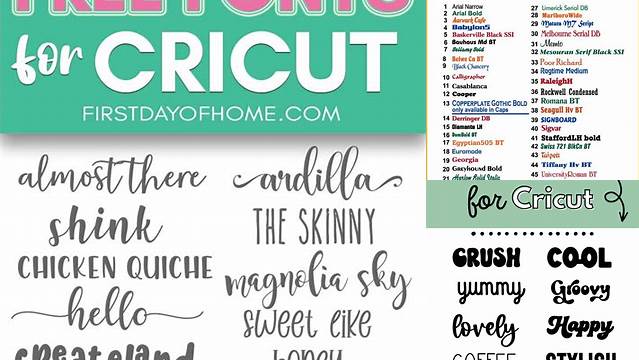
Cricut Font Names: A Complete Guide For Crafters
Hey crafters! Ever found yourself lost in the sea of Cricut font names, wondering which one to use for your next project? You're not alone! Choosing the right font can make or break your design. This guide is your ultimate resource for navigating the world of Cricut fonts, from built-in options to the best ones you can download and use. We'll cover everything from font categories to pairing tips, so you can create stunning crafts every time. Let's dive in and become Cricut font pros!
Cricut Design Space Fonts
The first place to start your font journey is right within Cricut Design Space itself! Cricut Design Space offers a wide array of fonts, and understanding what’s available is crucial. The platform boasts a diverse library of both Cricut fonts and system fonts (those already installed on your computer). Knowing how to access and utilize these fonts can significantly enhance your crafting capabilities. Many crafters find the built-in options more than sufficient for a wide range of projects, while others choose to expand their collection with external fonts. By exploring this section, you’ll gain a solid foundation in the basics of Cricut Design Space fonts and their usage, setting the stage for more advanced font exploration.
Understanding Cricut Fonts vs. System Fonts
It's important to understand the difference between Cricut fonts and system fonts to make the most of Cricut Design Space. Cricut fonts are those that are directly available through your Cricut Design Space subscription or purchased individually. System fonts, on the other hand, are the fonts that are already installed on your computer’s operating system (like Windows or macOS). This distinction matters because it affects how you access and use the fonts. Cricut fonts are readily available within Design Space and often come with special features like multi-layer options. System fonts, while accessible, might require additional steps for optimal use within the software. Knowing this difference ensures you can seamlessly integrate any Cricut font name or style into your projects, whether it's a built-in option or one you’ve installed yourself. Choosing the right type can significantly impact the final look of your craft!
Filtering Fonts in Design Space
Filtering fonts in Cricut Design Space can save you a ton of time and make your creative process much smoother. With hundreds of options available, finding the perfect Cricut font can feel like searching for a needle in a haystack. Fortunately, Design Space offers several filtering options. You can filter by font type (single-layer, writing), style (serif, sans-serif, script), or even by whether they are Cricut fonts or system fonts. Additionally, you can use the search bar to quickly find a specific Cricut font name if you already have one in mind. Mastering these filtering techniques will help you narrow down your choices and focus on the fonts that best suit your project’s needs. So, don't get overwhelmed – learn to filter, and find your font soulmate faster!
Popular Cricut Font Categories
Exploring the popular Cricut font categories is key to finding the right style for your projects. Just like in traditional typography, Cricut fonts fall into various categories, each with its unique aesthetic and purpose. Common categories include Serif, Sans-Serif, Script, Display, and Decorative fonts. Serif fonts have small decorative strokes at the ends of the letters, giving them a classic and formal feel. Sans-Serif fonts are cleaner and more modern, lacking these strokes. Script fonts mimic handwriting, adding an elegant touch. Display fonts are bold and eye-catching, perfect for titles and headings. And Decorative fonts are the wildcards, offering unique and artistic designs. Understanding these categories can help you quickly identify which Cricut font name suits the tone and style of your project. So, let's dive into the categories and see what magic they hold!
Serif fonts are a classic choice for many projects, offering a sense of tradition and formality. These Cricut fonts are characterized by the small decorative strokes, or “serifs,” at the ends of their letters. This feature gives them a polished and professional appearance, making them ideal for projects that require a touch of elegance. Think of using serif fonts for wedding invitations, formal announcements, or any design where you want to convey sophistication. Cricut Design Space offers several serif options, each with its unique flair. Popular examples include Times New Roman and Garamond, which are also system fonts. When exploring Cricut font names within the serif category, consider the weight and spacing to ensure readability. Choosing the right serif font can elevate your project from simple to stunning. So, embrace the classic charm of serifs and see how they can transform your creations!
Sans-serif fonts bring a modern and clean aesthetic to your Cricut projects. Unlike their serif counterparts, sans-serif fonts lack the decorative strokes at the ends of the letters. This gives them a more streamlined and contemporary appearance, making them perfect for designs that need to feel fresh and approachable. These Cricut fonts are incredibly versatile and work well in a variety of applications, from website graphics to product labels. In Cricut Design Space, you'll find a plethora of sans-serif options, each with its distinct personality. Popular choices include Arial, Helvetica, and Futura, which are widely recognized for their clarity and legibility. When browsing Cricut font names in this category, think about the overall vibe you want to achieve. A bold sans-serif can command attention, while a lighter one feels more subtle. So, go ahead and explore the world of sans-serif fonts and see how they can add a touch of modern elegance to your crafting!
Script Fonts
Script fonts add a touch of elegance and personality to your Cricut projects. These Cricut fonts mimic the fluidity of handwriting, offering a sophisticated and personal touch. Whether you're creating wedding invitations, personalized cards, or decorative signs, script fonts can bring a sense of charm and artistry. In Cricut Design Space, you’ll find a wide array of script fonts, ranging from formal and flowing to playful and whimsical. Some popular examples include Brush Script, Great Vibes, and Lavenderia. However, it's important to choose your script fonts carefully. Overly ornate or intricate scripts can be difficult to read, especially in smaller sizes. When exploring Cricut font names in this category, consider the legibility and the overall message you want to convey. A well-chosen script font can transform your project into a work of art. So, let your handwriting dreams come to life with the beauty of script fonts!
Display Fonts
Display fonts are the attention-grabbers of the Cricut font world, designed to make a statement and command attention. These Cricut fonts are perfect for headings, titles, and any project where you want to create a bold and impactful visual. Display fonts come in a vast range of styles, from retro and vintage to modern and edgy, allowing you to find the perfect match for your project's theme. In Cricut Design Space, you'll discover a diverse selection of display fonts, each with its unique personality. Think about using display fonts for posters, banners, or even custom apparel designs. However, keep in mind that display fonts are generally best used in moderation. They can be overwhelming if used for large blocks of text. When browsing Cricut font names in this category, consider how the font's style complements the overall design and message. So, unleash your creativity with display fonts and make your projects stand out from the crowd!
Best Fonts for Wedding Invitations
Choosing the best Cricut fonts for wedding invitations involves finding the perfect blend of elegance and readability. Wedding invitations often call for a touch of sophistication and romance, so script fonts and elegant serifs are popular choices. Think about script fonts like Great Vibes or Lavanderia for a beautiful, handwritten feel. For a more classic look, consider serif fonts like Times New Roman or Garamond. These Cricut fonts offer a timeless appeal that's perfect for formal occasions. However, it's crucial to ensure the font is easy to read, so balance the decorative elements with clarity. You might pair a script font for the names with a simpler serif or sans-serif for the details. When exploring Cricut font names for your wedding invitations, think about the overall theme and style of the event. The right font can set the tone and make your invitations truly memorable. So, let's find those fonts that say